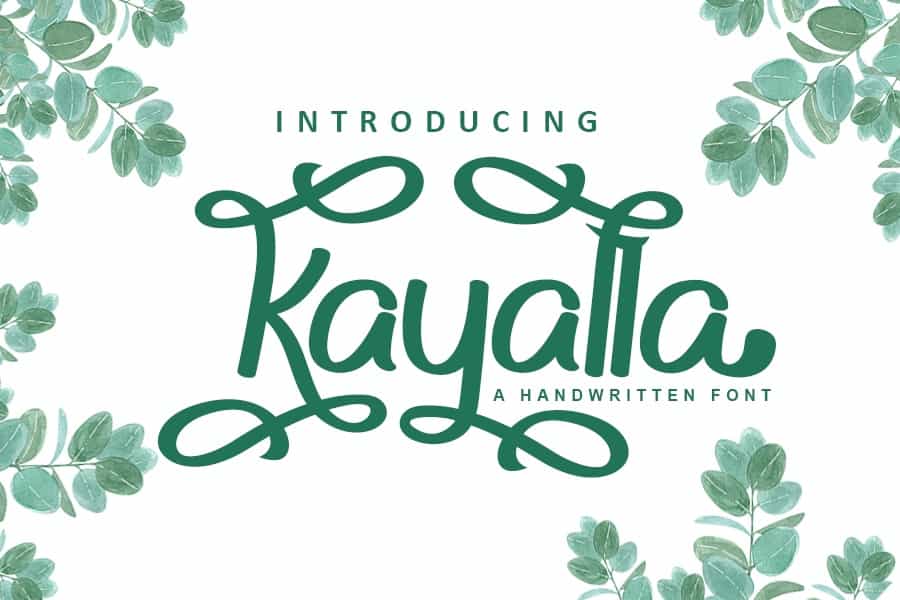
Kayalla is a delicate and sweet script typeface perfect for calligraphy. This elegant script font makes an eye-catching statement on wedding invites, thank-you cards, greeting cards, quotes logos business cards or any design needing the handwritten touch.